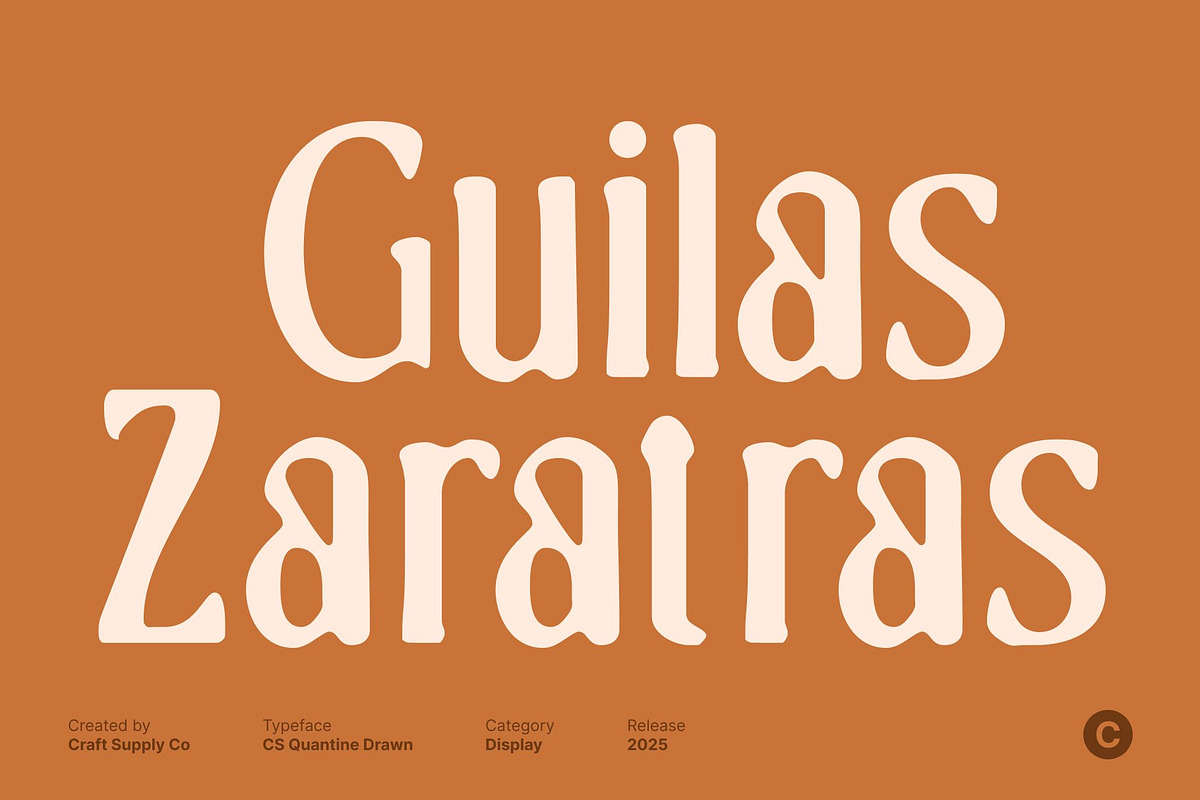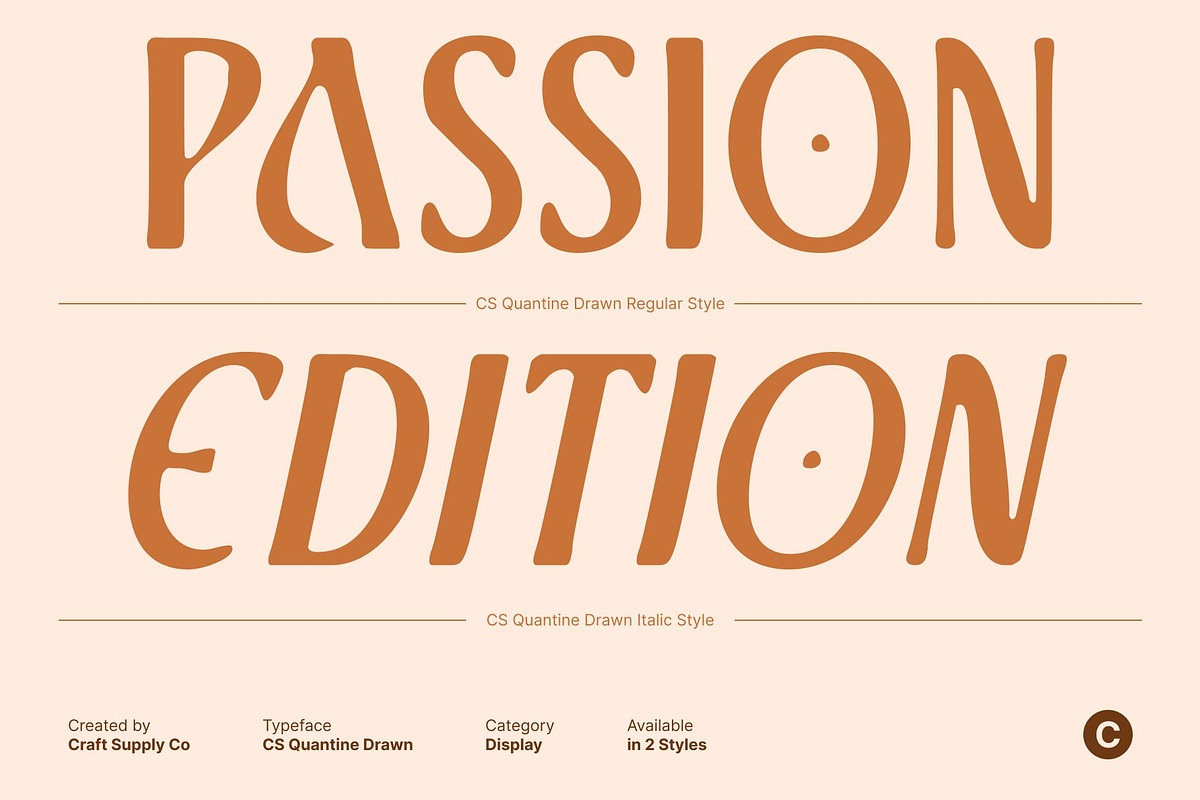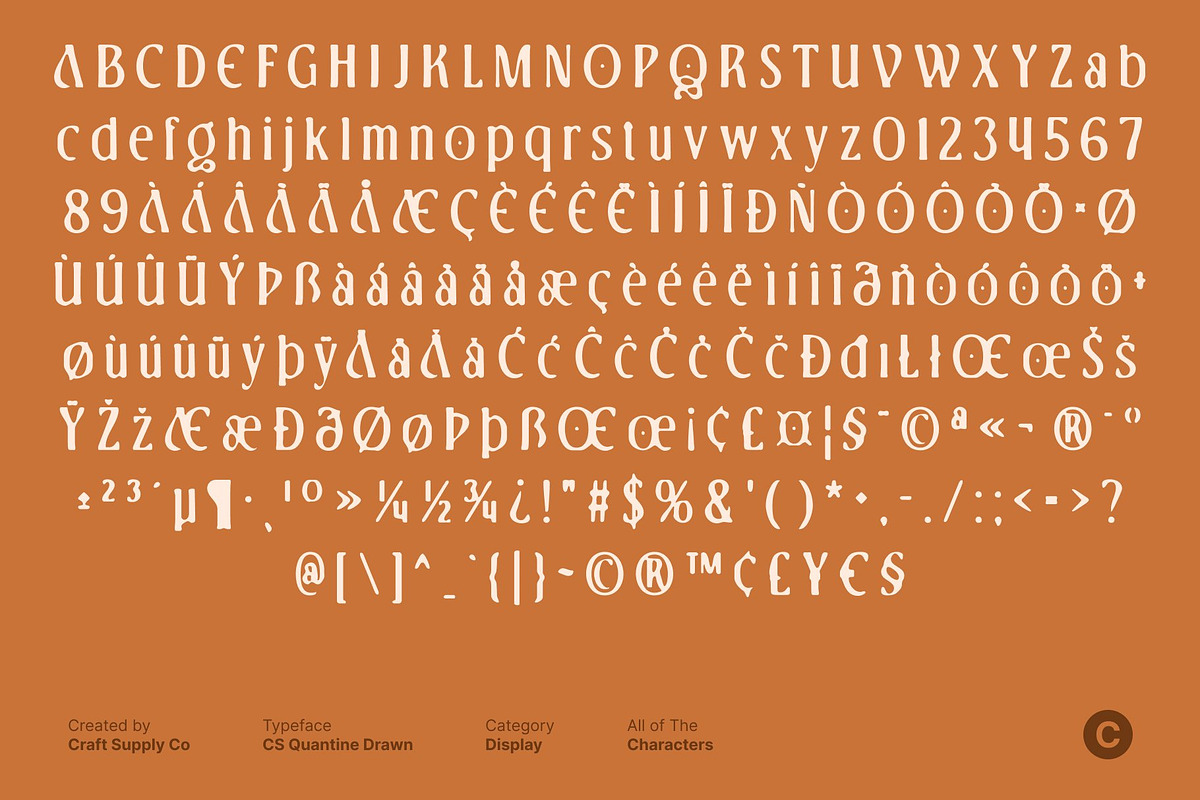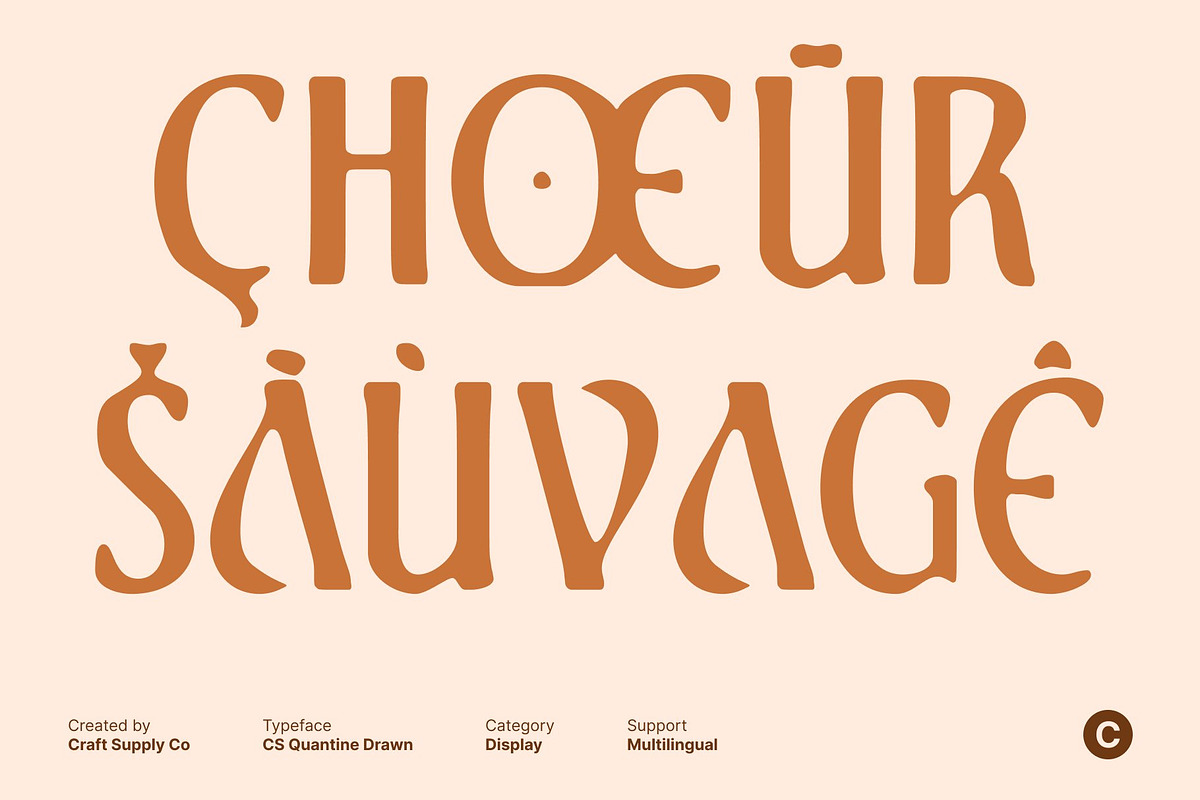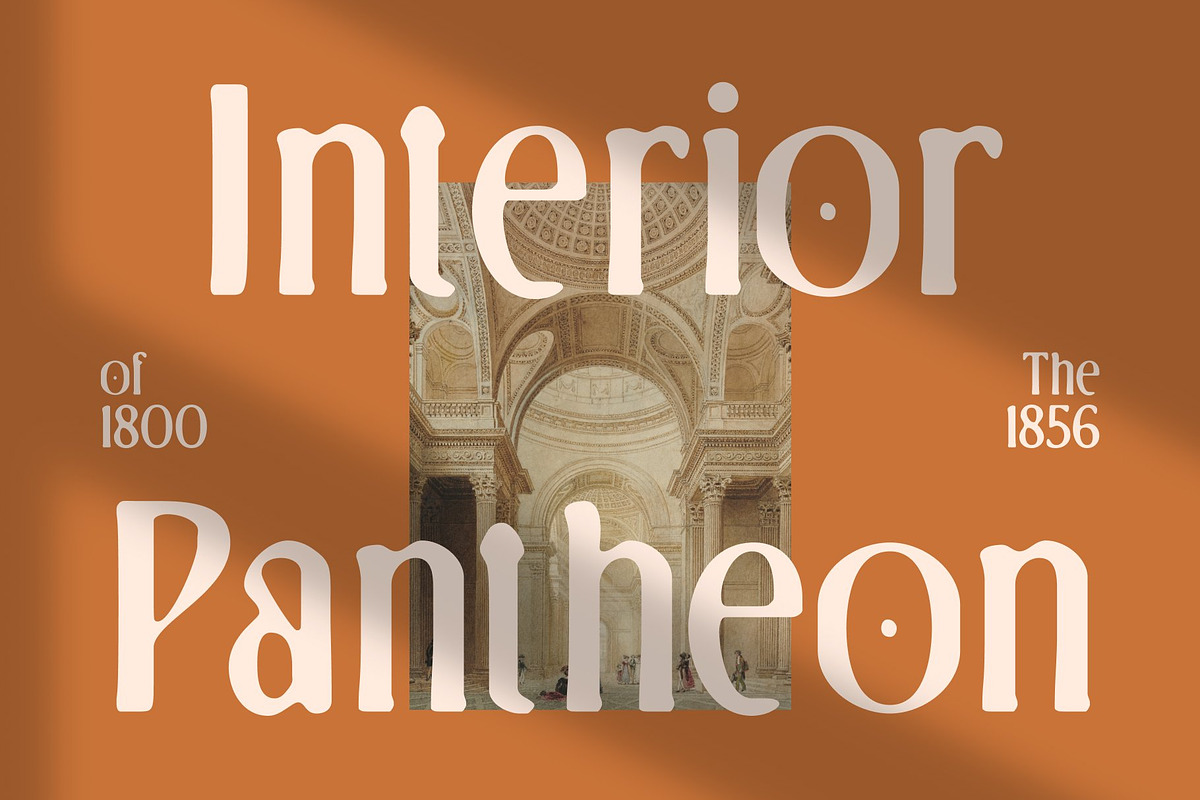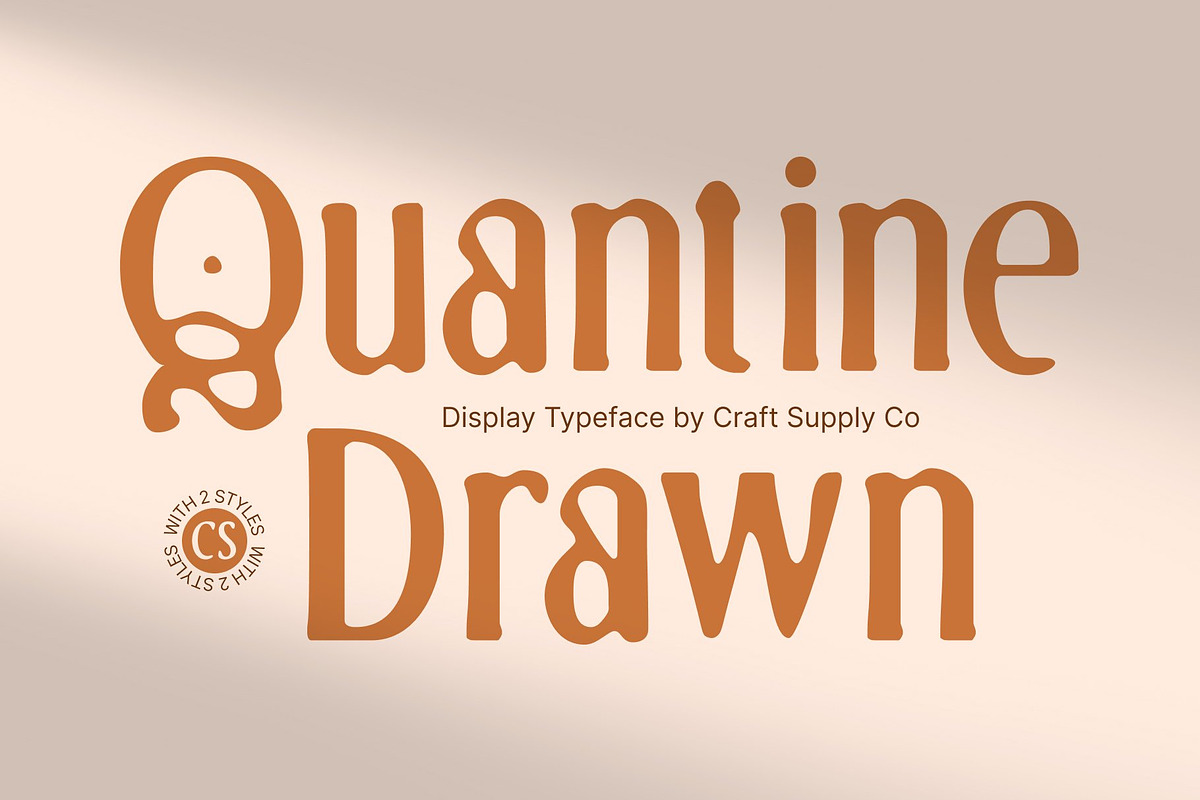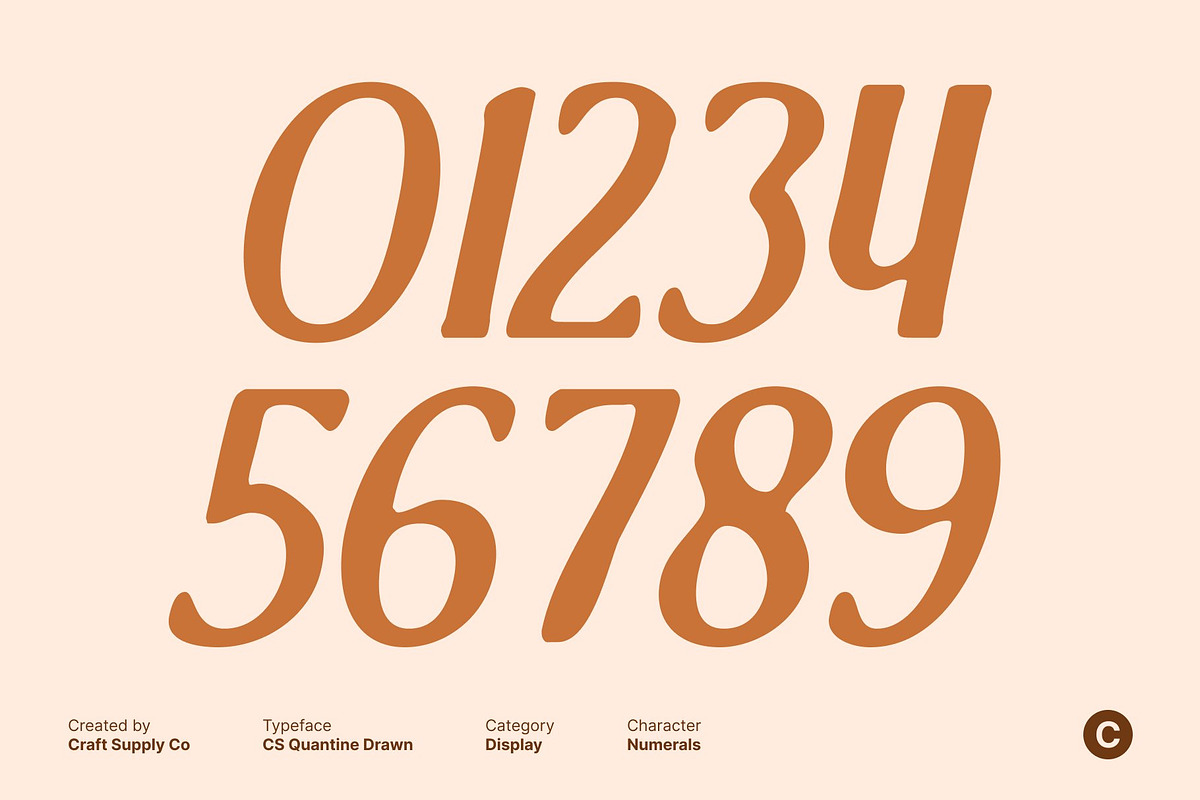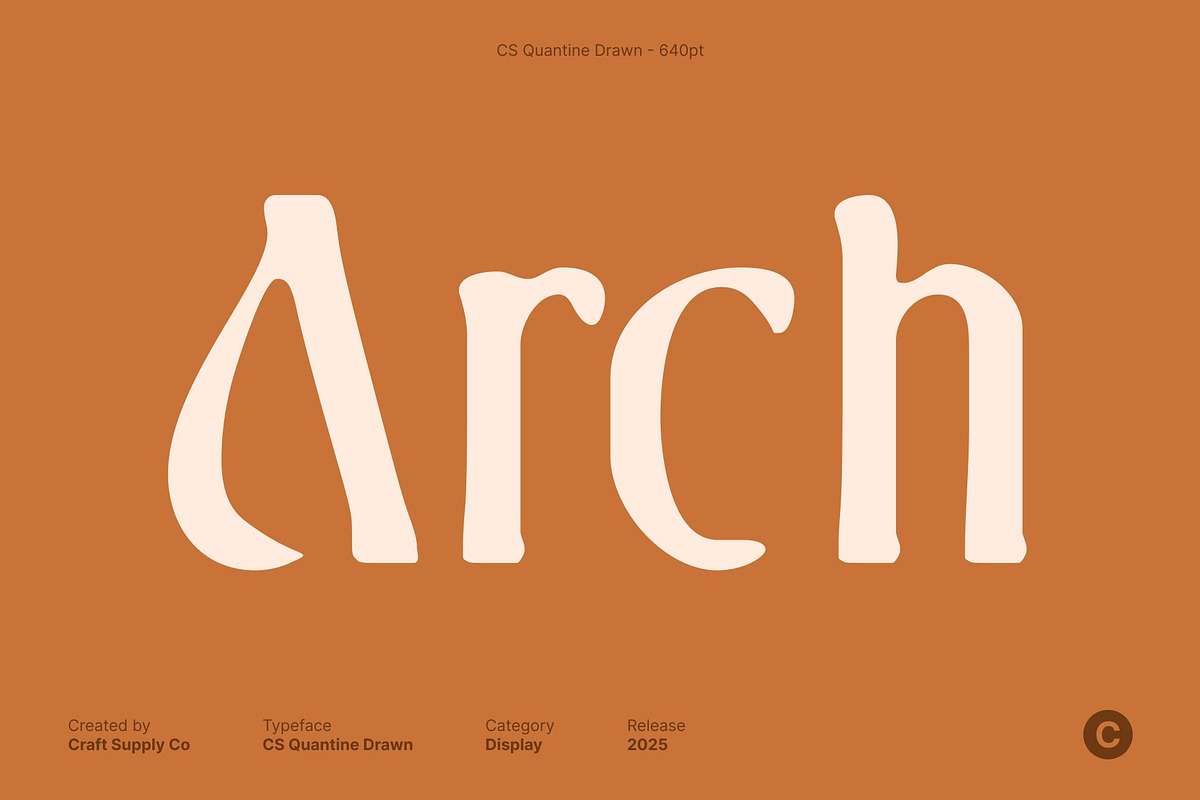
CS Quantine Drawn
CS Quantine Drawn – Elegant Serif Display Font with Refined Hand-Drawn Texture
Refined Curves for a High-End Elegant Style This is an elegant serif display font designed with refined curves and beautifully crafted details that elevate every composition. Its graceful shapes and balanced proportions give the font a luxurious, high-end appearance, making it perfect for designers who want to convey sophistication, class, and timeless beauty in their work.
Beautiful Serif Details for Luxurious Visual Appeal The delicate serif touches and smooth transitions between strokes add a polished, graceful character to every letter. These fine details create a sense of precision and elegance, enhancing readability while giving your typography an unmistakable premium feel. This font excels in designs where elegance and visual refinement are essential.
Hand-Drawn Texture for Unique Artistic Character Enhanced with a subtle drawn texture, this font stands out with a handcrafted charm that softens its formal elegance. The organic strokes introduce warmth and uniqueness, blending luxury with artistic personality. This texture adds depth and distinction, making each character feel individually crafted and full of expressive detail.
Perfect for Luxury Design, Editorials, and Branding This font is an excellent choice for high-end branding, editorial layouts, magazine titles, packaging, and anything that demands a sophisticated visual tone. Its elegant forms and artistic drawn texture bring both professionalism and personality, ensuring your designs feel premium, stylish, and memorable.
- CS Quantine Drawn Regular
- CS Quantine Drawn Italic